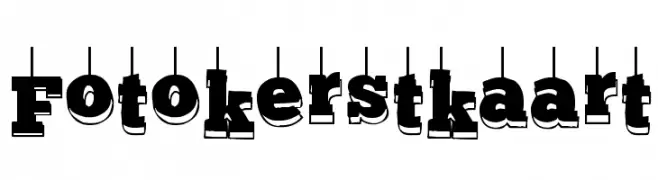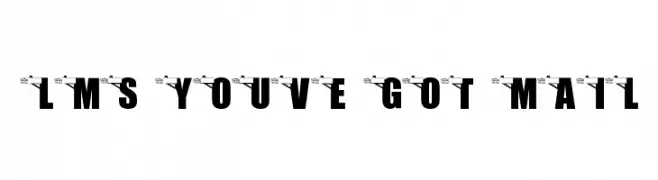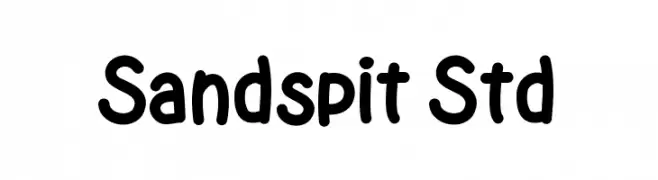
An accessible, italic font with distinct, weighted letterforms for enhanced readability.
A diverse set of decorative and plain frame glyphs.
Eclectic dingbat font with diverse symbols and decorative motifs.
A fantasy-inspired serif font with sharp, angular serifs and ornate details.
A playful, decorative font with letters hanging on a clothesline, ideal for creative projects.
A playful, decorative font with letters hanging from a clothesline.
A playful, bold font with a hanging effect and three-dimensional shadows.
A bold, playful font with rounded, hand-drawn characters.
A bold, geometric font with angular lines and circular dots, offering a modern and artistic style.
A geometric, angular font with hexagonal shapes and consistent line thickness.